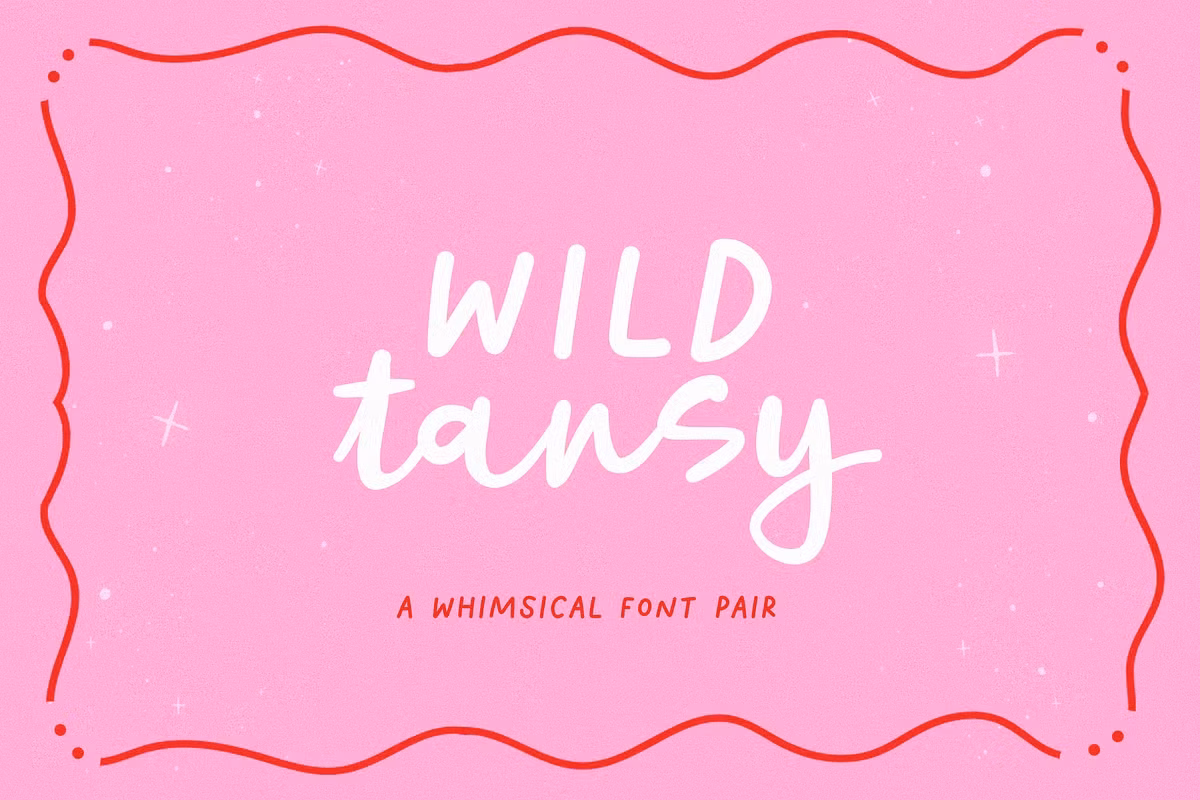
The Wild Tansy Font Duo Free Download is a beautifully crafted pair of fonts designed to bring elegance and charm to your designs. Featuring a combination of a flowing script font and a clean, modern sans-serif, this duo is perfect for creating dynamic, stylish branding, logos, invitations, and more. Whether you’re designing for a creative project, wedding branding, or a chic boutique, Wild Tansy offers the perfect mix of elegance and versatility.
Wild Tansy Font Duo Free Download is ideal for designers looking to add a sophisticated, hand-lettered feel to their work. Perfect for modern branding, invitations, or any design requiring a stylish, refined touch, this font duo will elevate your designs with ease. Download it today and infuse your creative work with the beauty and elegance of Wild Tansy!